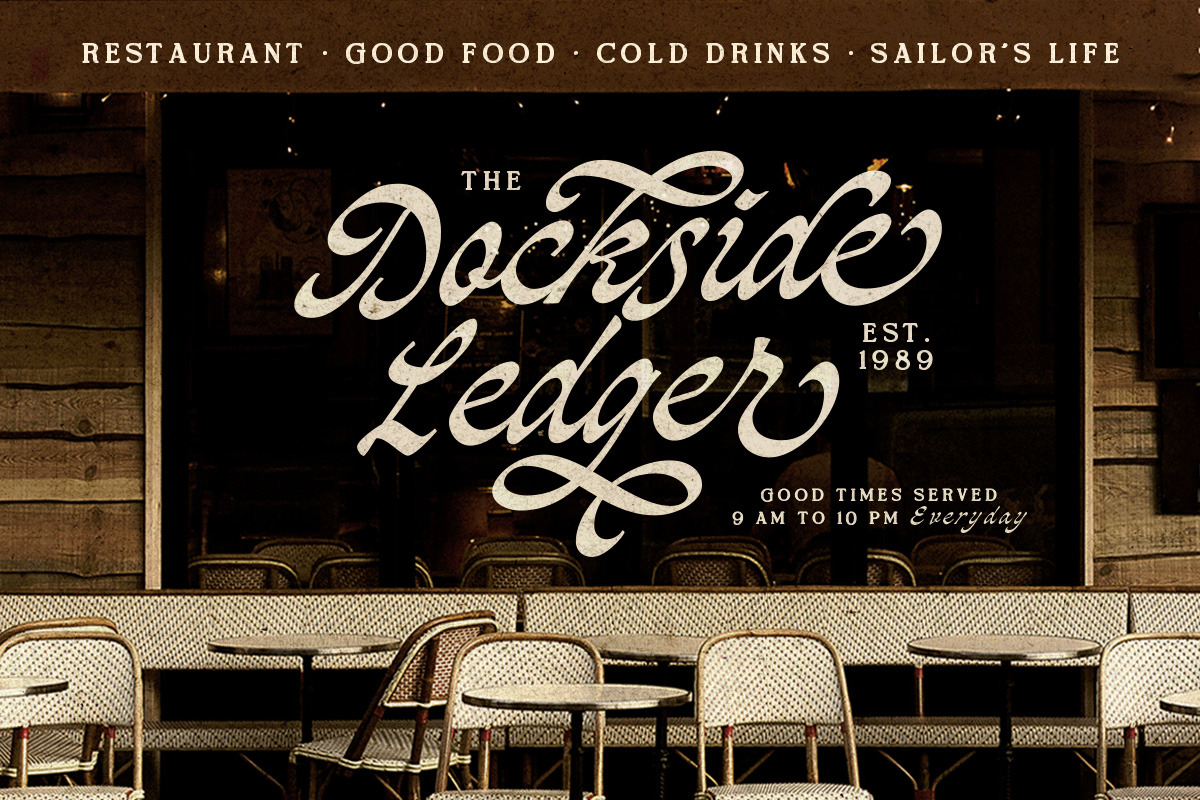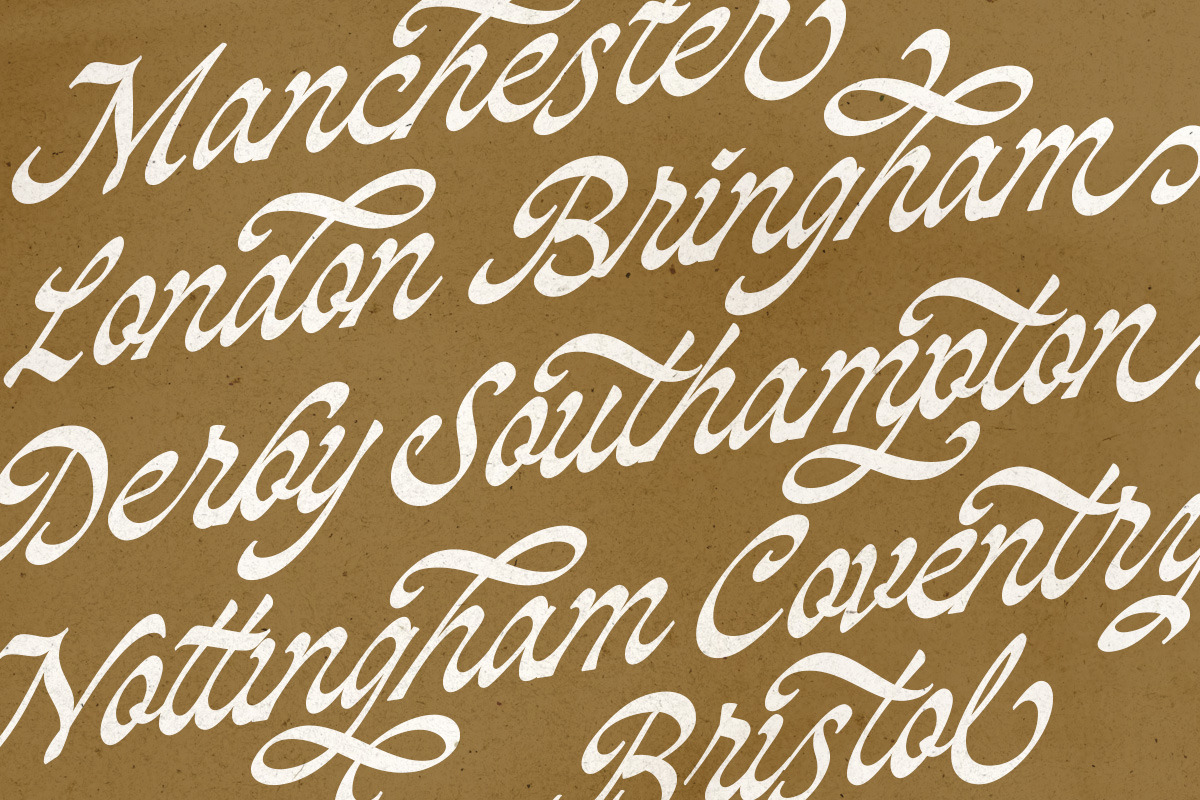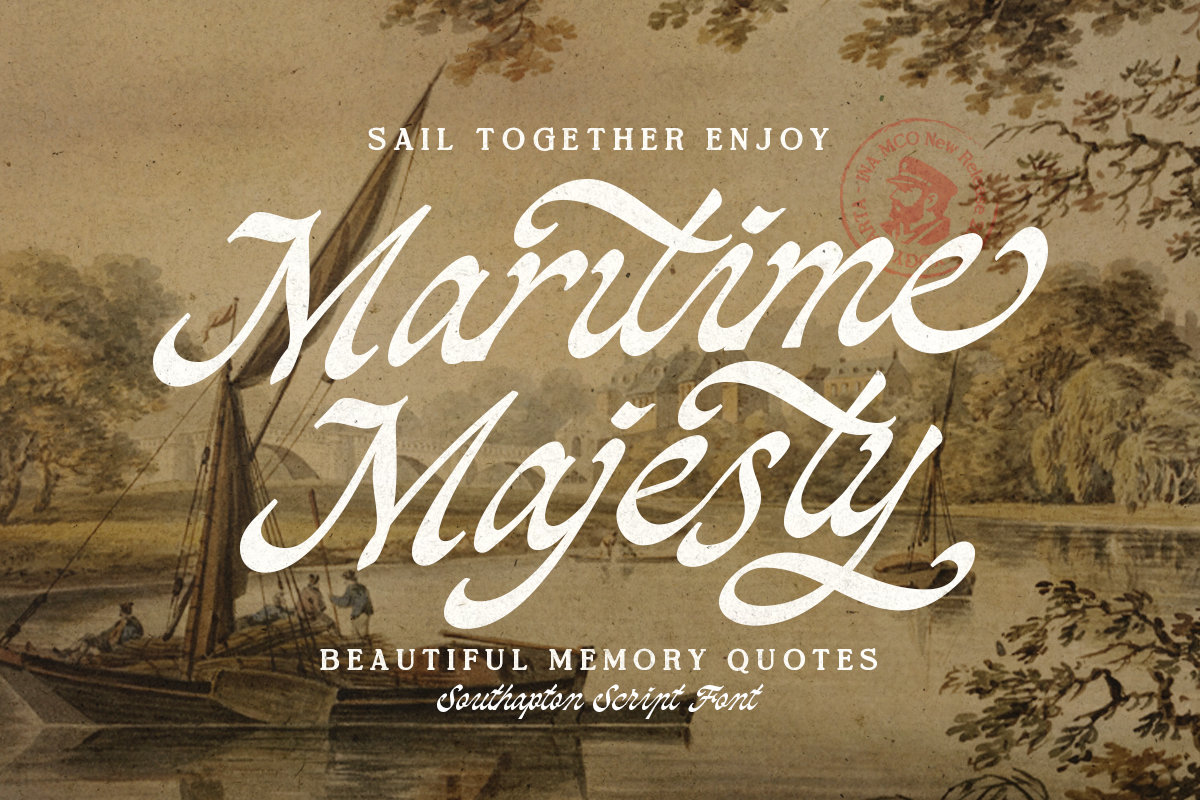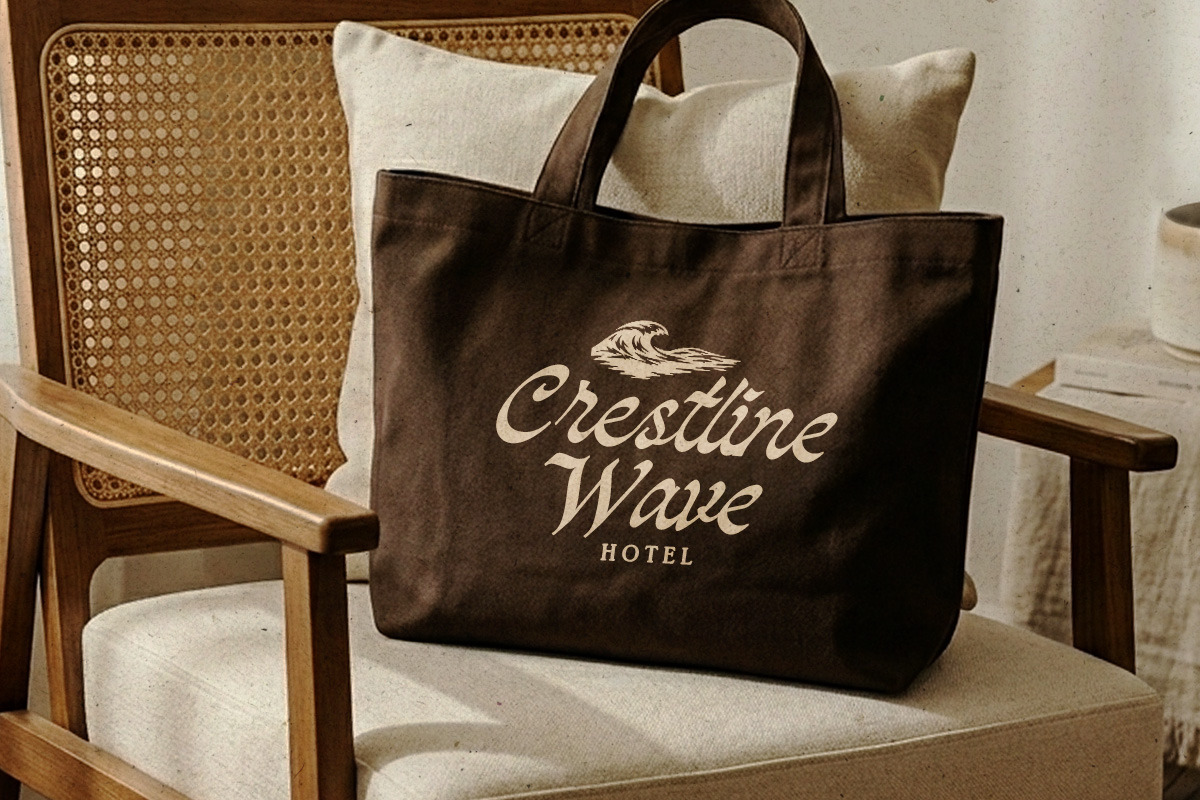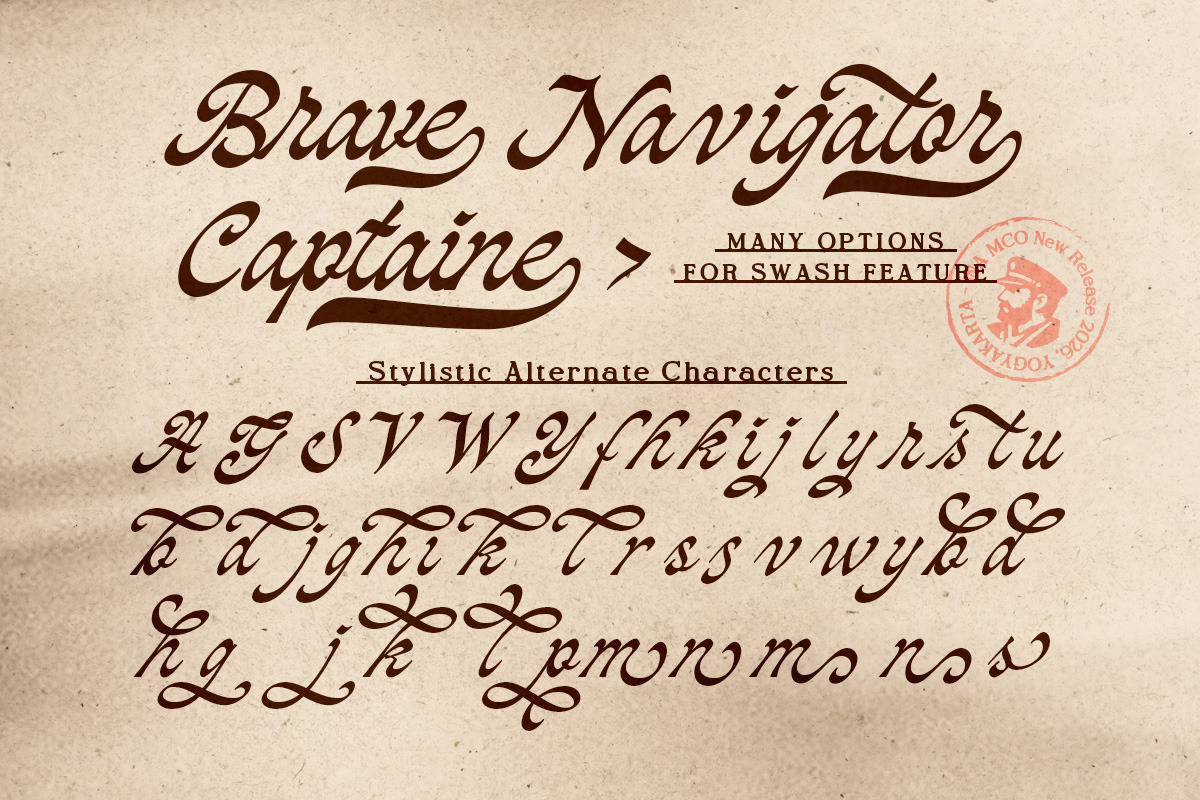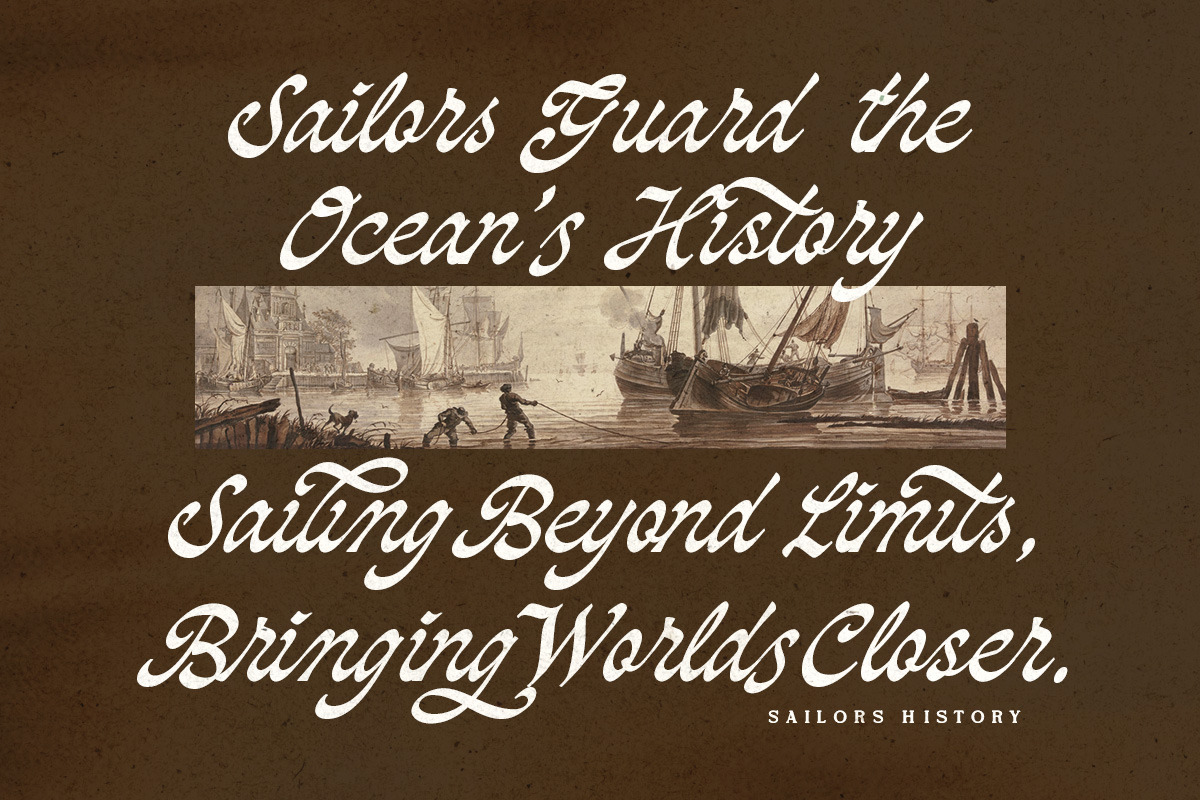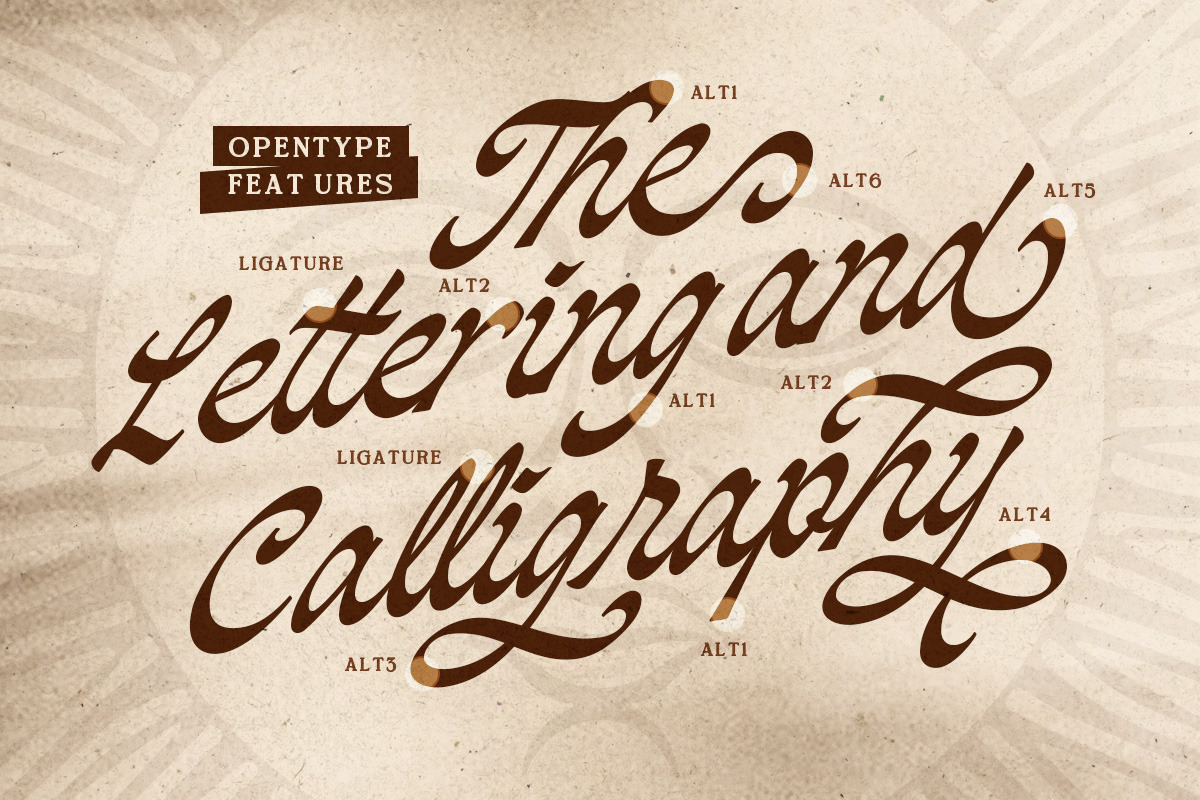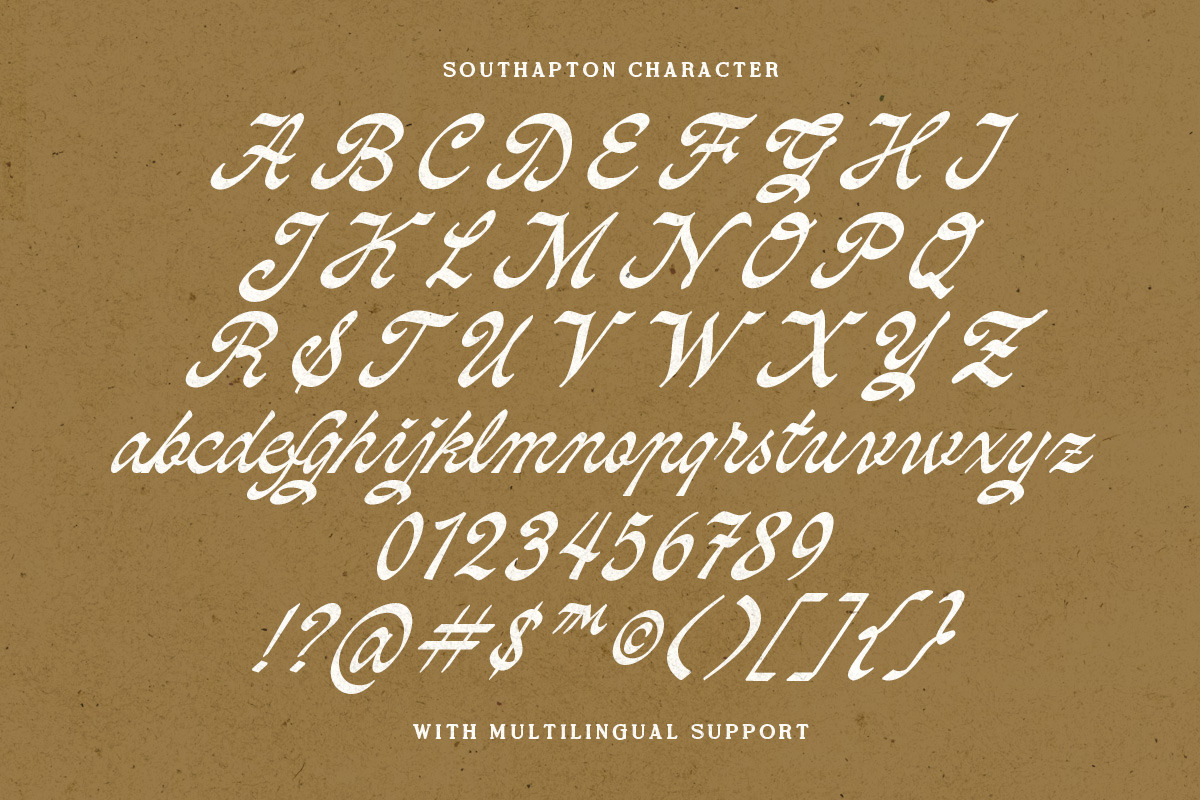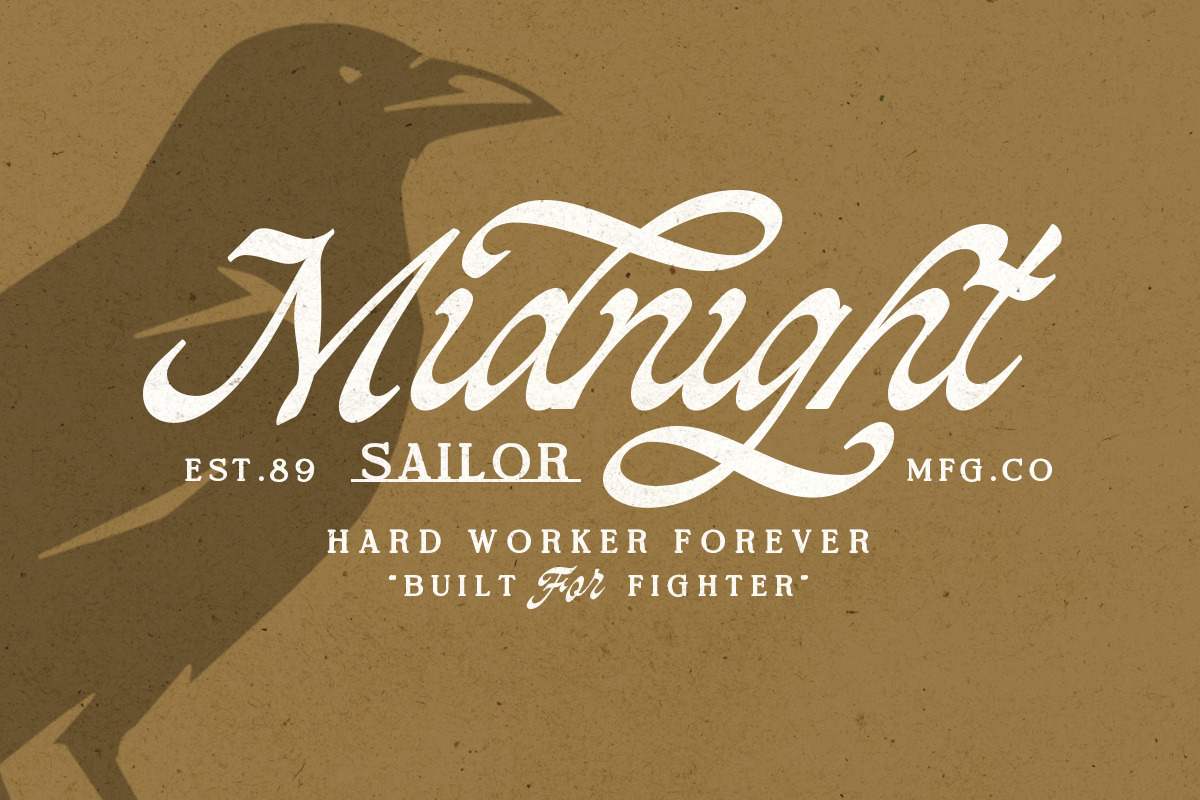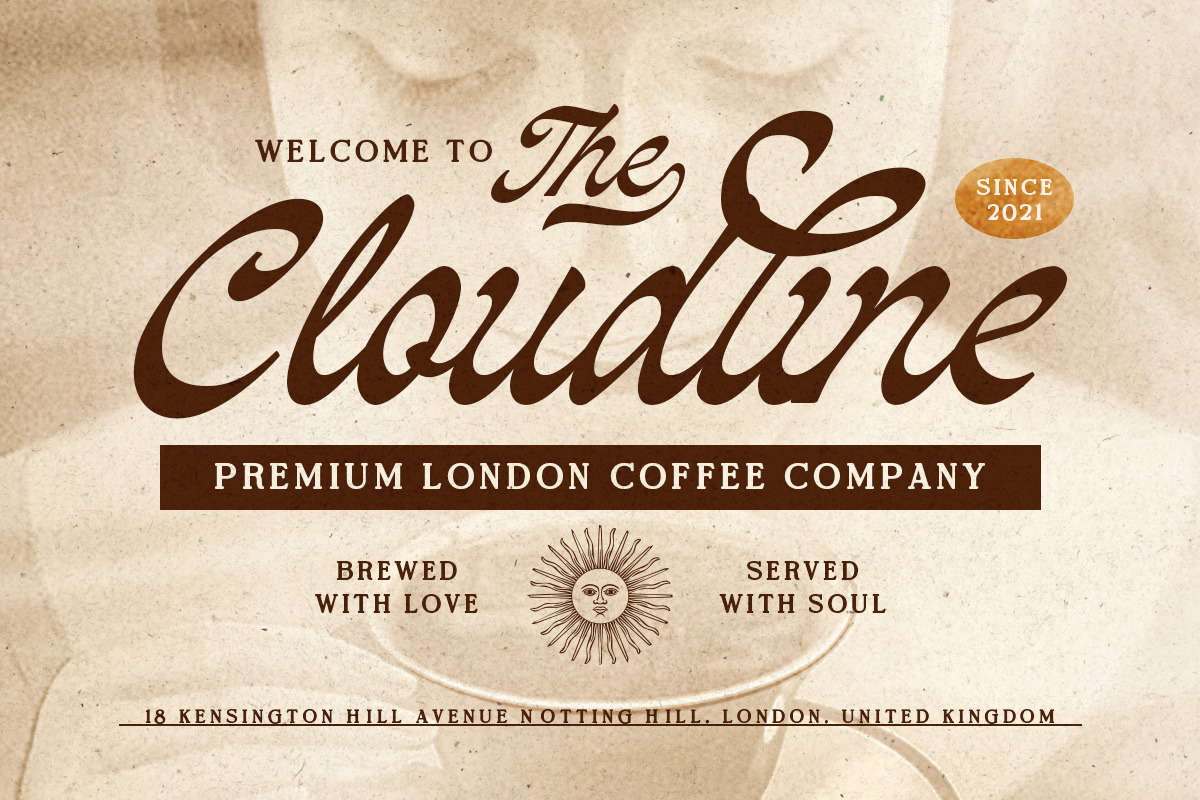
MCO - Southapton
Set sail on your next creative journey with Southapton Font, a bold and vintage display script. Inspired by classic maritime aesthetics, old-school sign painting, and heritage branding, this typeface delivers a striking, hand-crafted feel with authentic rough edges.
Southapton Font commands attention, making it the ultimate choice for projects that require a strong, nostalgic, and masculine character. Whether you are designing a logo for a heritage brand, crafting vintage apparel, or creating rustic packaging, this font anchors your design with timeless appeal.
Perfectly Suited For:
Vintage Logos & Heritage Branding
Nautical & Outdoor-themed Apparel
Premium Product Packaging (Coffee, Spirits, Barbershop goods)
Classic Posters & Signages
Merchandise & Typography-driven designs